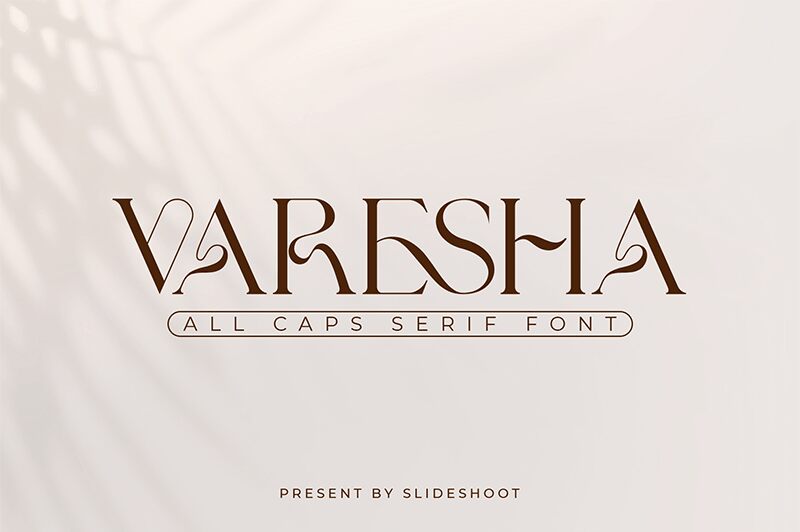
Varesha font family by Slide Shoot Type contains various font styles that explore the potential of classic-less shapes. This free typeface family is visually very rich, with letters characterized by small and delicate anatomic particularities. The overall vibe is elegant, sophisticated, and contemporary, perfect for pleasing and communicative design display ideas.
Use Varesha font family to enhance your headline copy as well as titles, logotypes, posters, flyers, and invitations. You can also apply it to large body text on packaging or any print or branding project. All you need is the originality to combine the available letters in the best possible way.